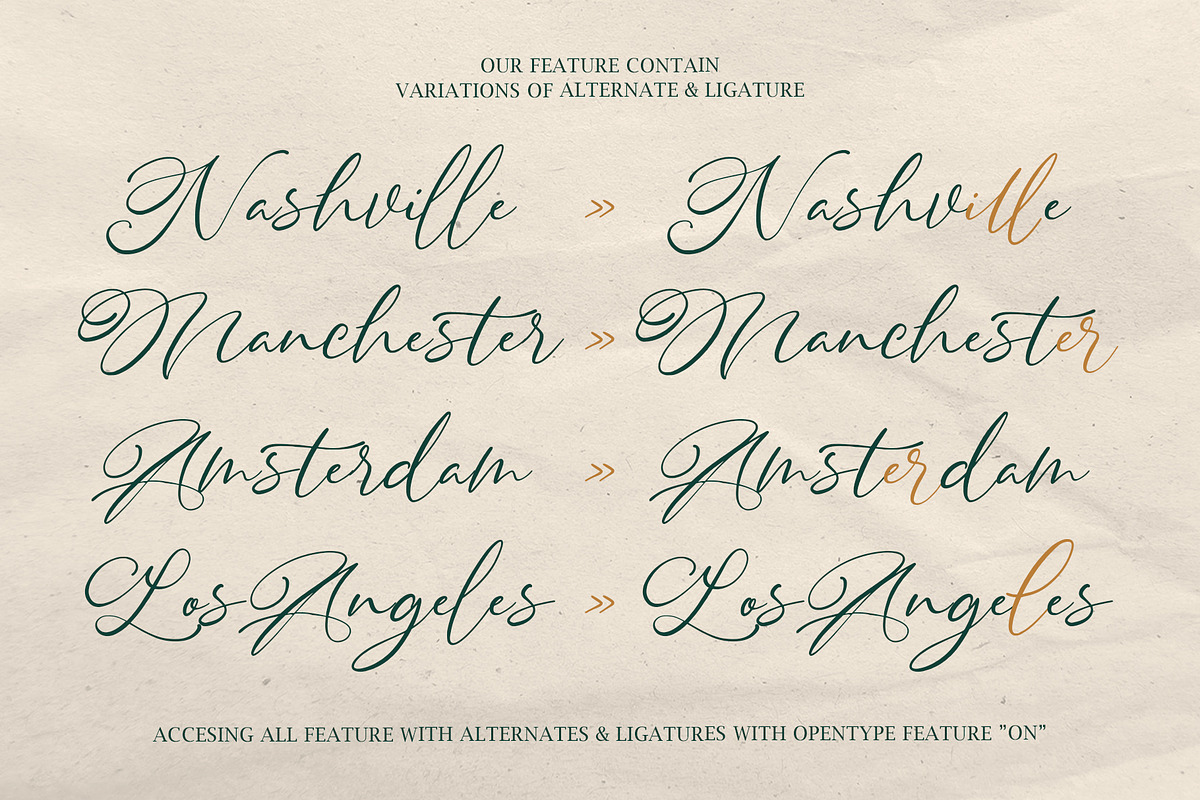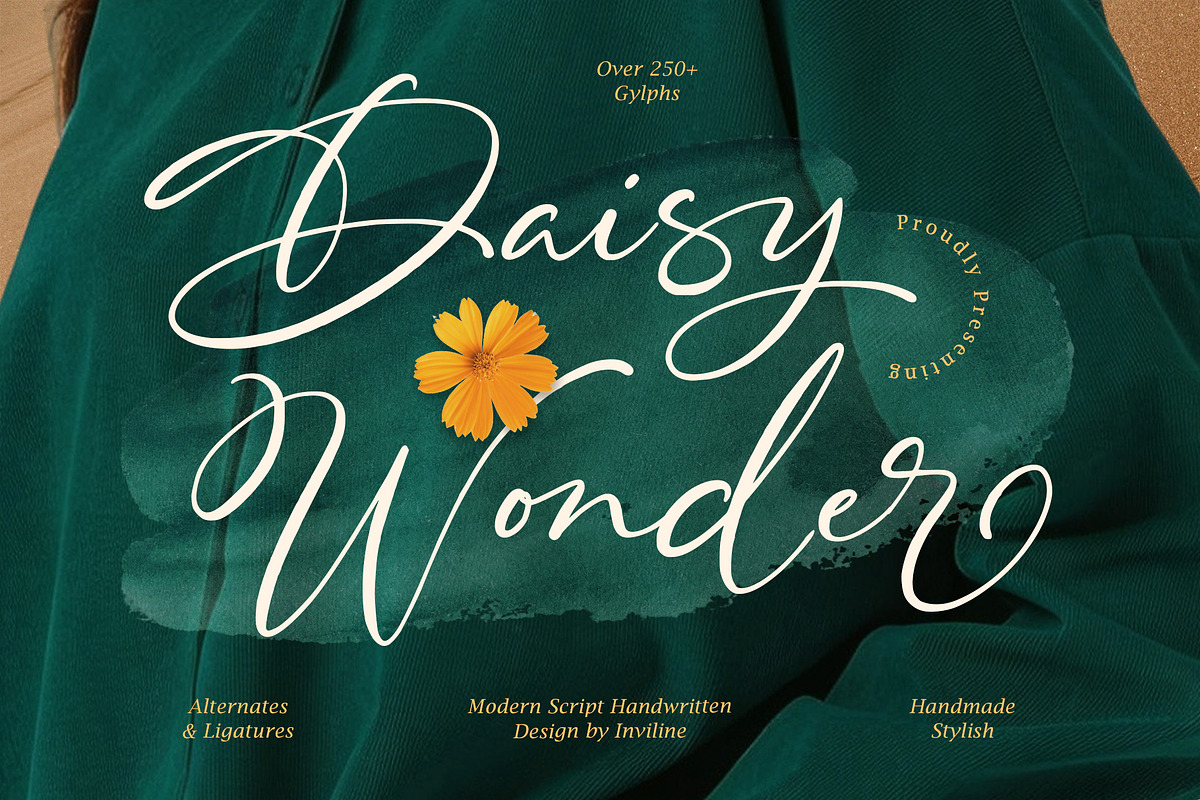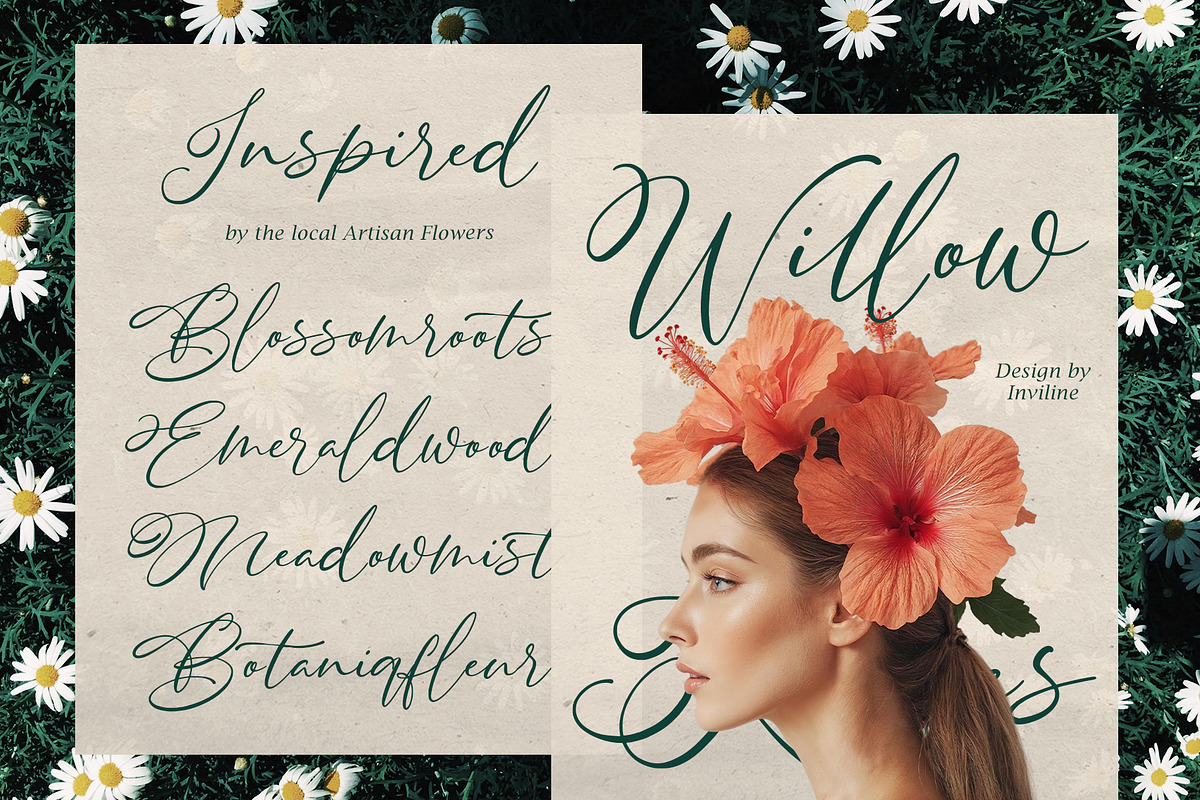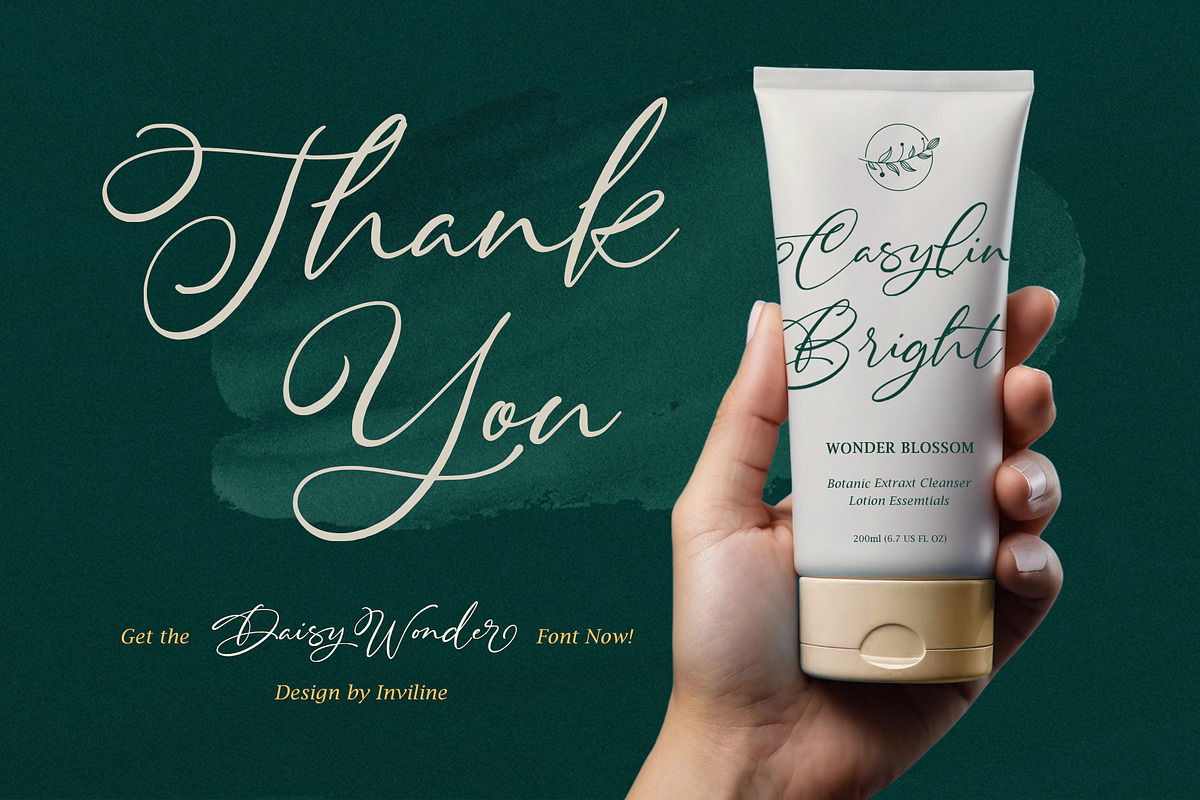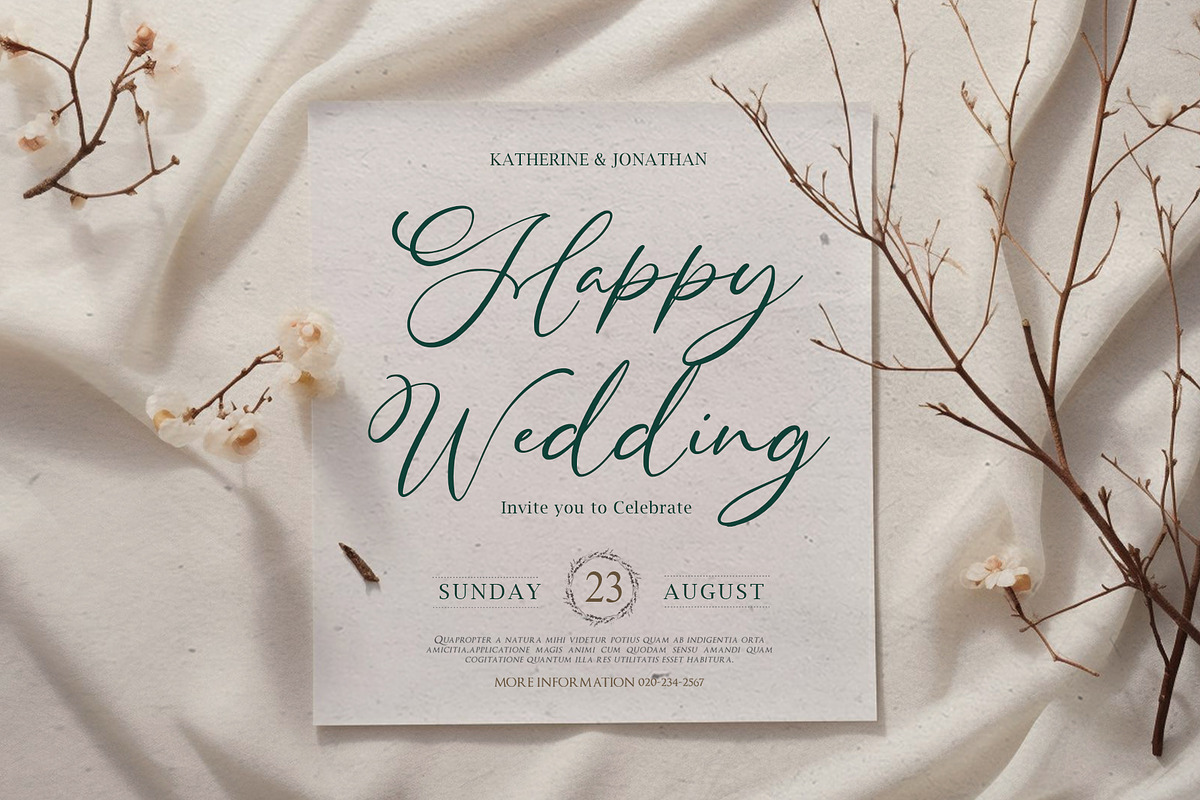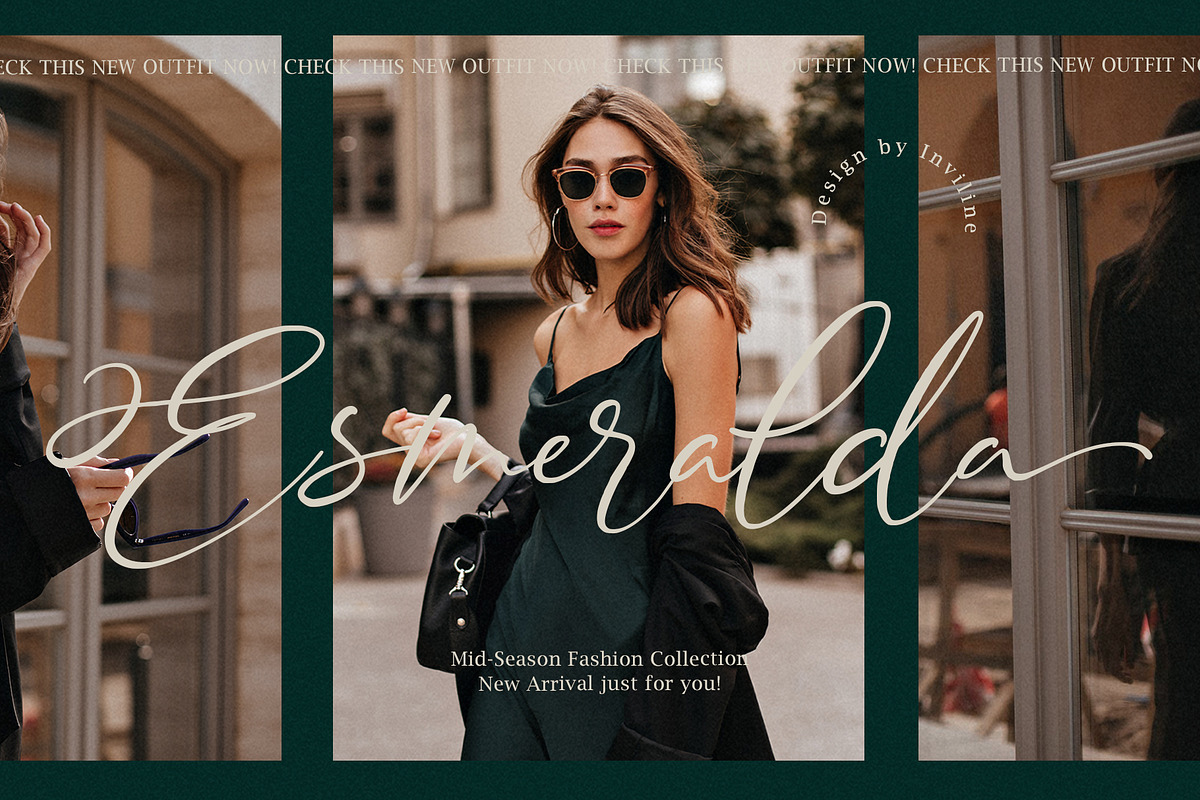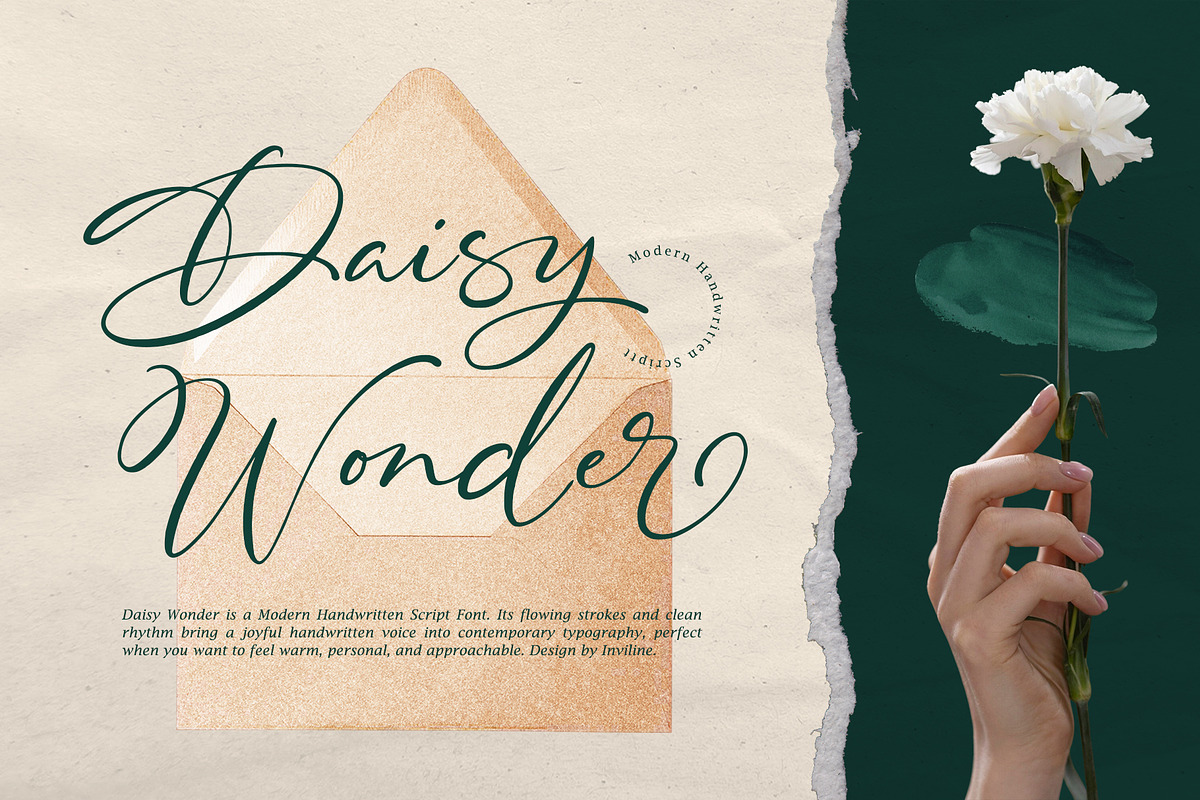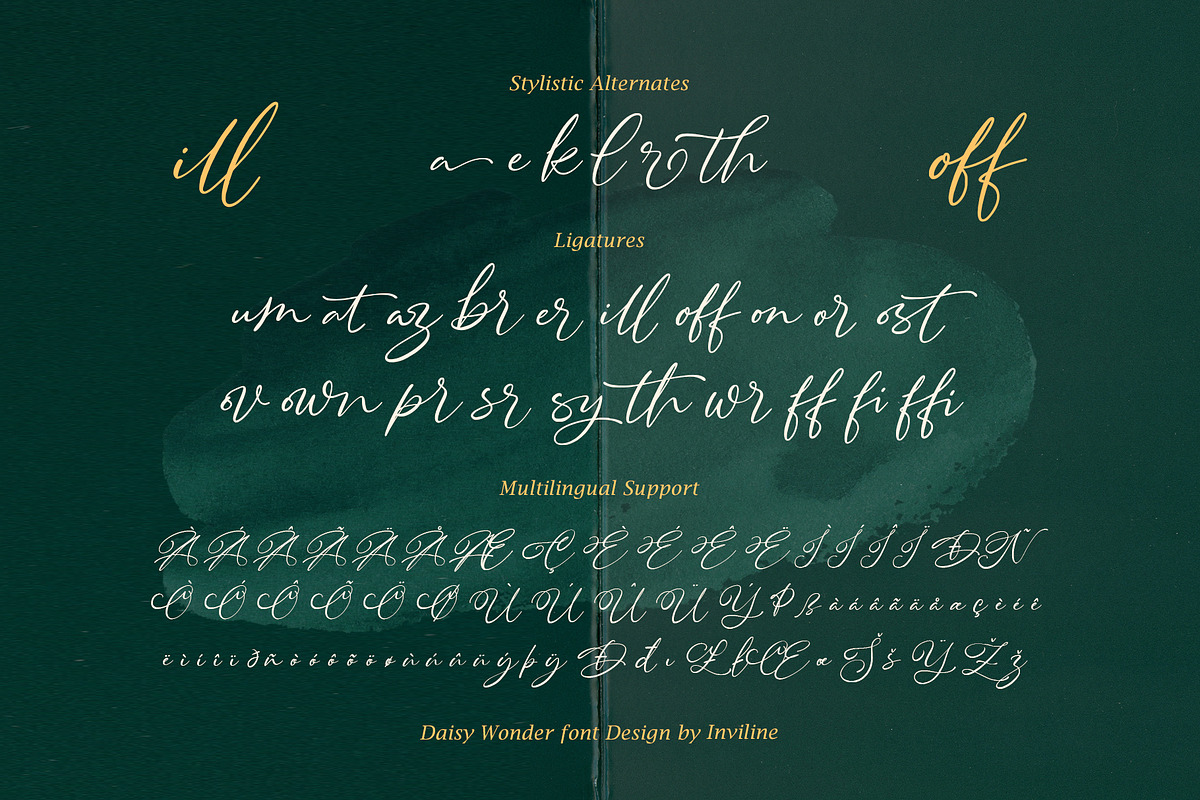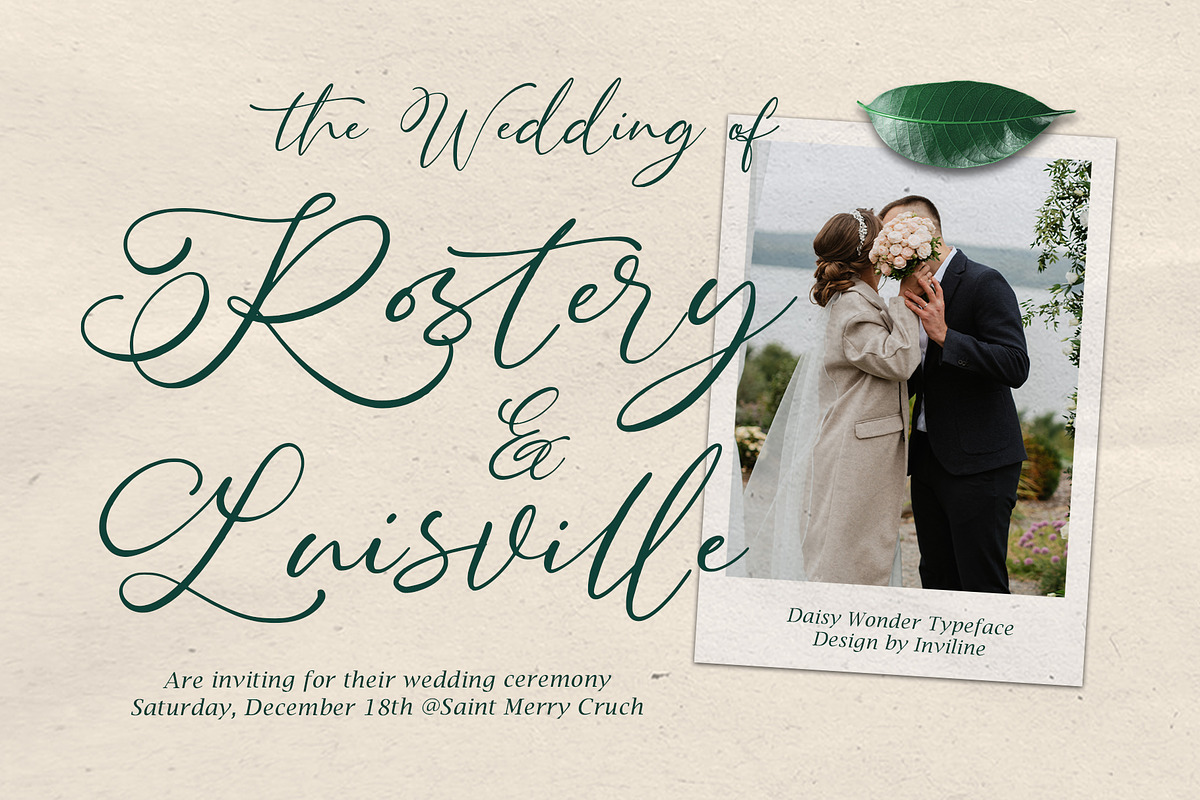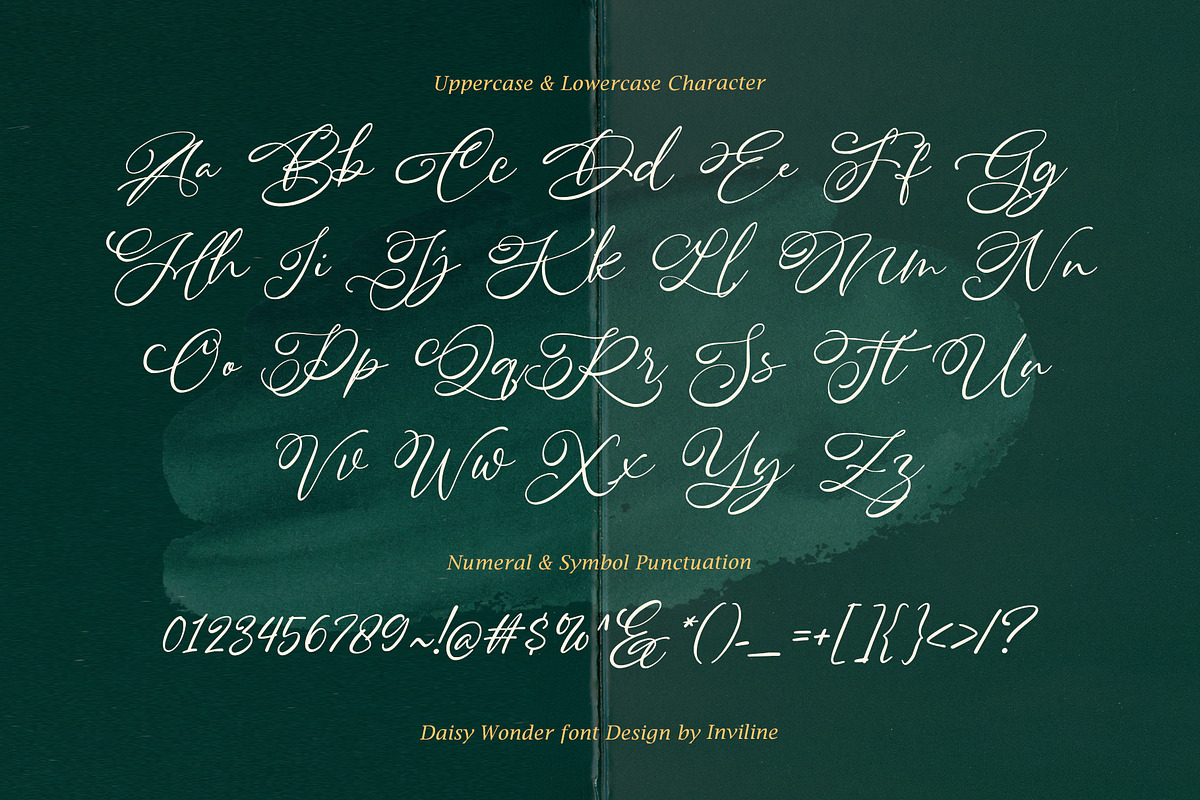
Daisy Wonder – Modern Handwritten
Daisy Wonder is a modern handwritten font designed to feel playful, friendly, and natural. Its flowing strokes and clean rhythm bring a joyful handwritten voice into contemporary typography, perfect when you want your message to feel warm, personal, and approachable.
From branding to social posts, Daisy Wonder keeps your layouts feeling fresh and lively. Use it for expressive headlines, logo signatures, packaging, invitations, or quotes that need just the right mix of elegance and ease. Pair it with simple sans-serif fonts for a polished, editorial look, or let it stand alone as a confident display script.
Branding & logo signatures
Wedding & event invitations
Greeting cards & stationery
Social media posts & quote graphics
Product packaging & labels
Lifestyle, fashion, and beauty brands
Blogs, magazines, and editorial layouts
Complete A–Z uppercase & lowercase
Numbers 0–9
Basic punctuation & symbols
Multilingual support (standard Latin)